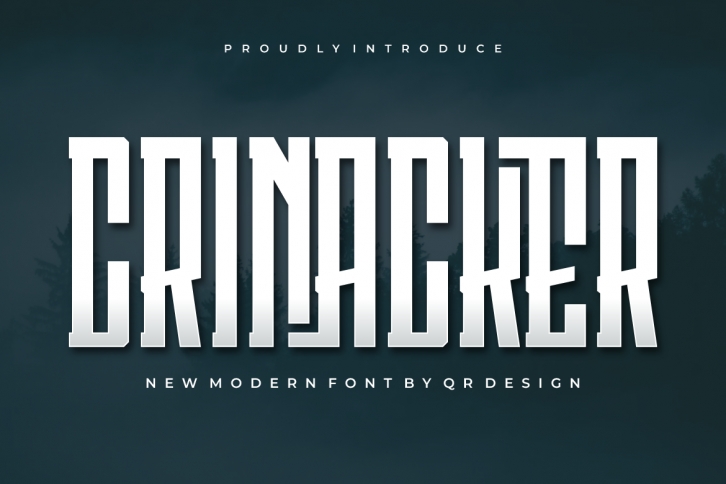
Crinacker Font is a bold and authentic display font.
The font is suitable for any branding project like logo, t-shirt printing, sport, and many more.
Outstanding in a wide range of contexts.